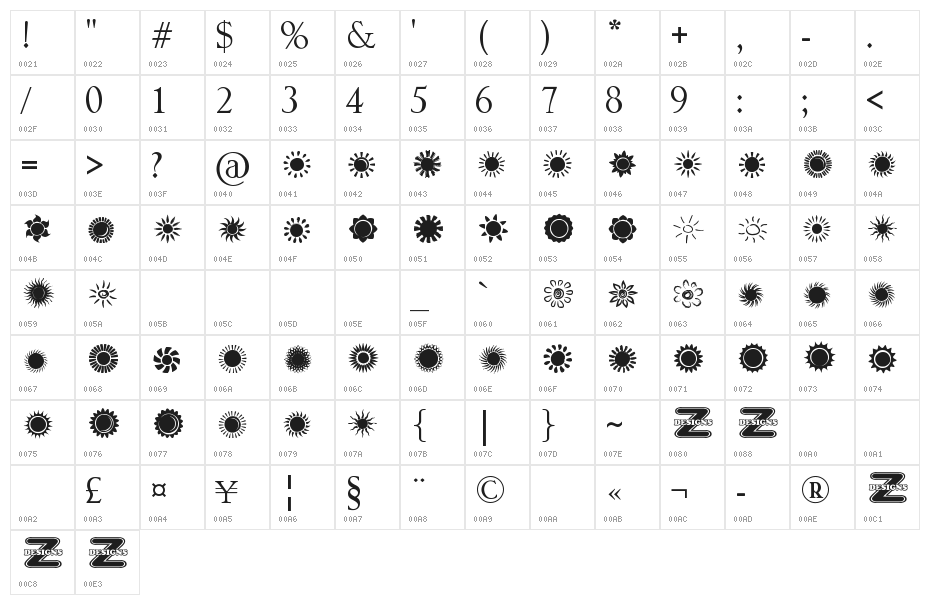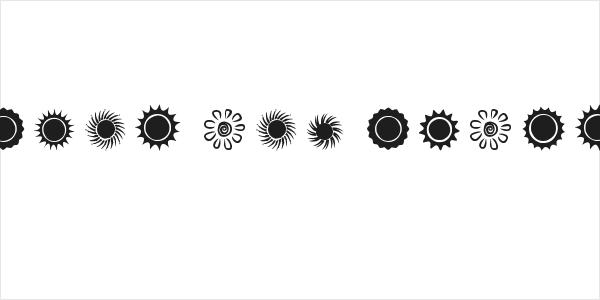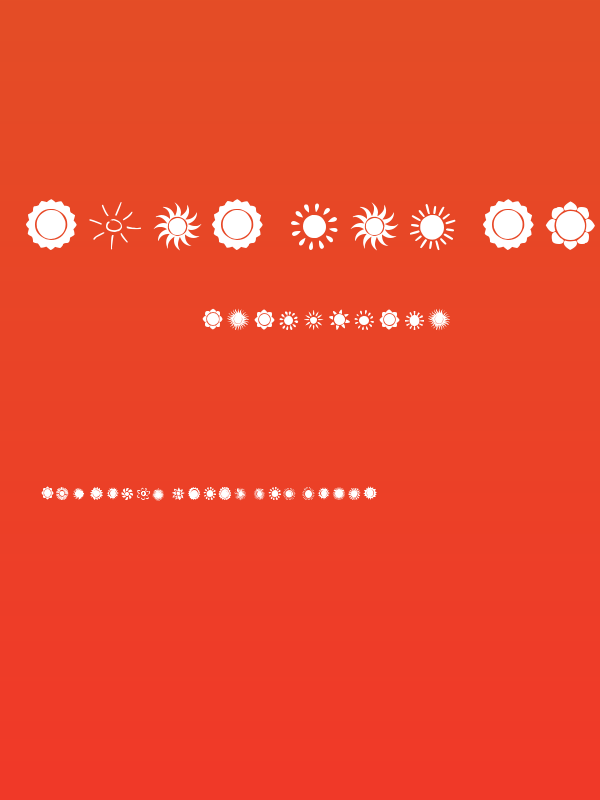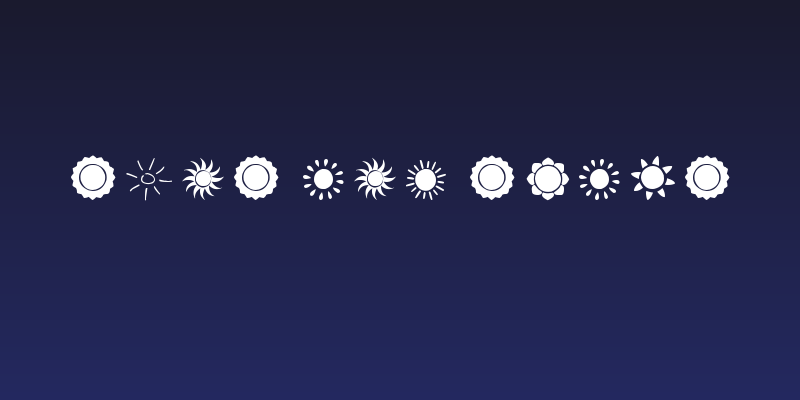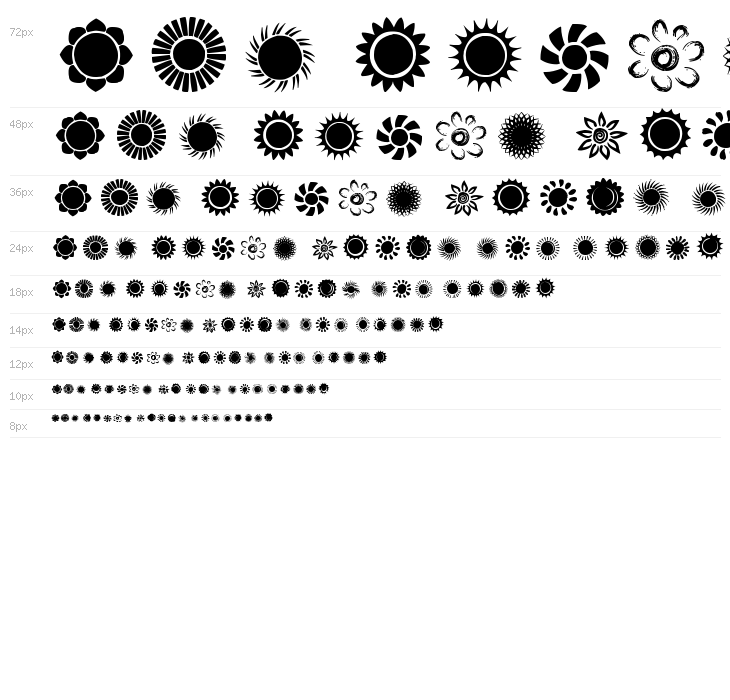
Suns and Stars Font
Suns and Stars Description
This font features a unique blend of celestial and numerical elements, combining decorative sun and star motifs with classic numeral characters. The celestial symbols are intricately designed, each with distinct patterns and shapes, offering a whimsical and artistic flair. The numerals are elegantly styled with a serif influence, providing a contrast to the decorative symbols. This combination creates a visually striking and versatile typeface that can be used for various creative projects. The special characters maintain the serif style, ensuring consistency across the font.
| Use Case | Logos, Headlines, Artistic Designs |
| Proposed Projects | Ideal for creative projects such as event invitations, astrology-themed designs, artistic posters, and decorative branding. |